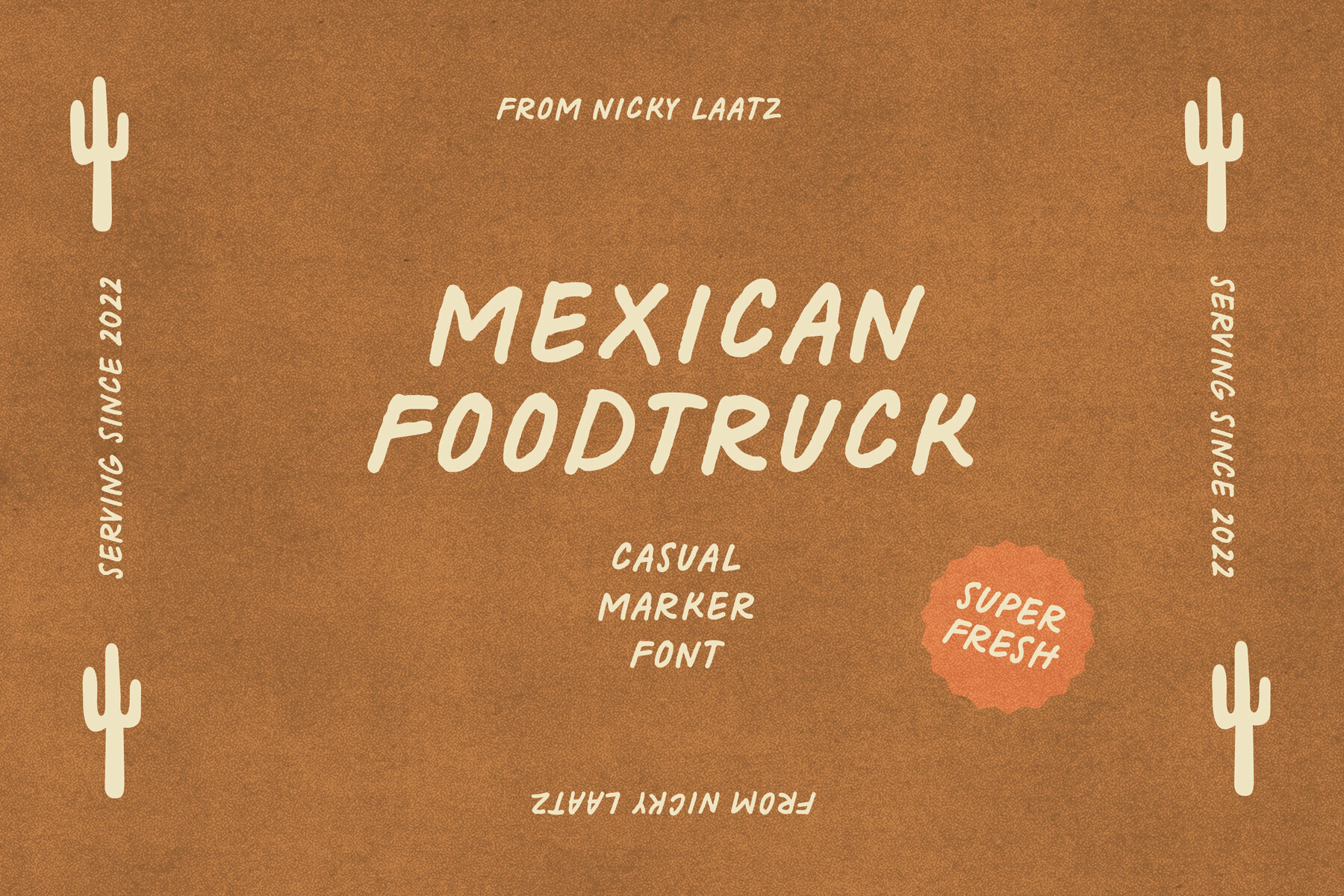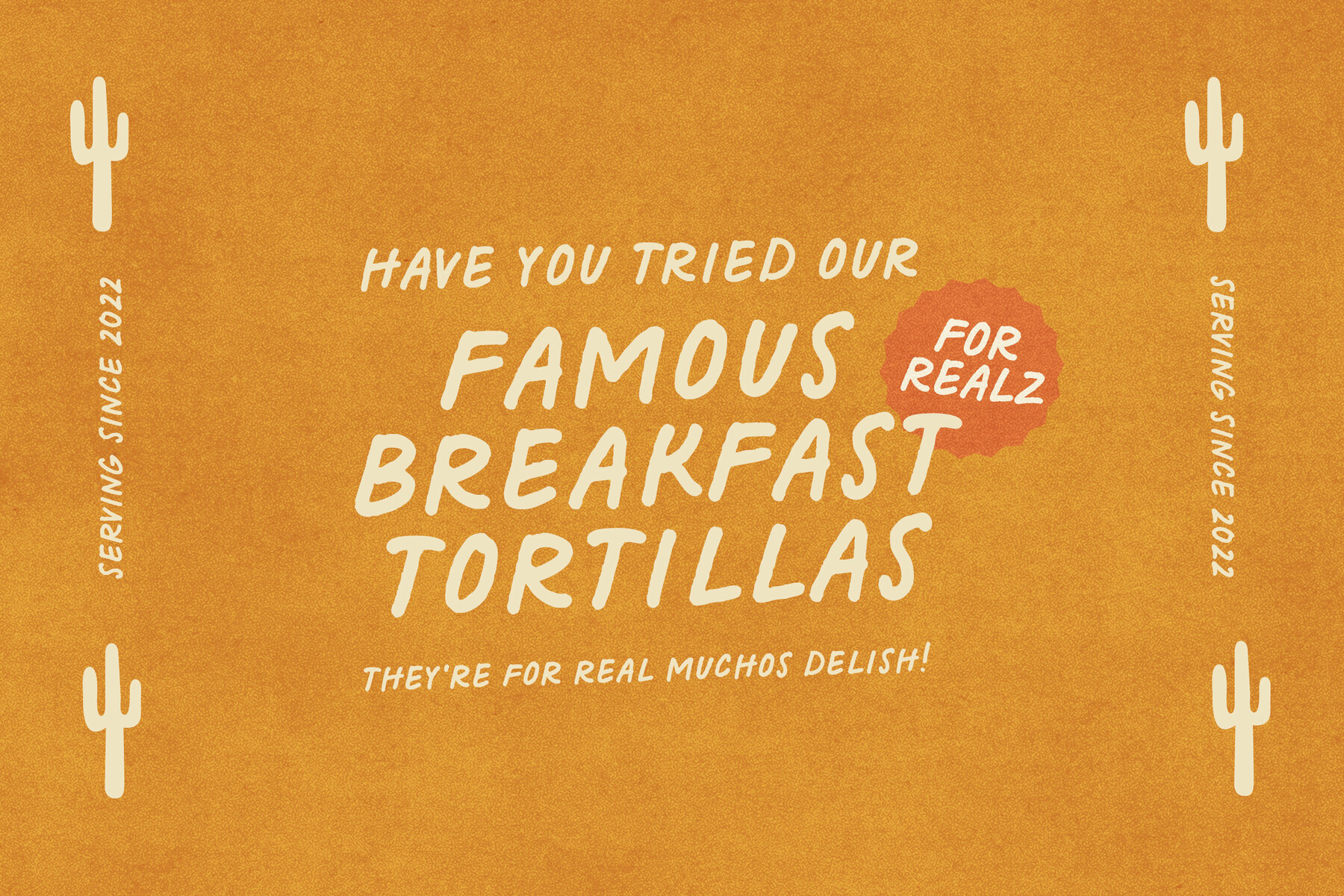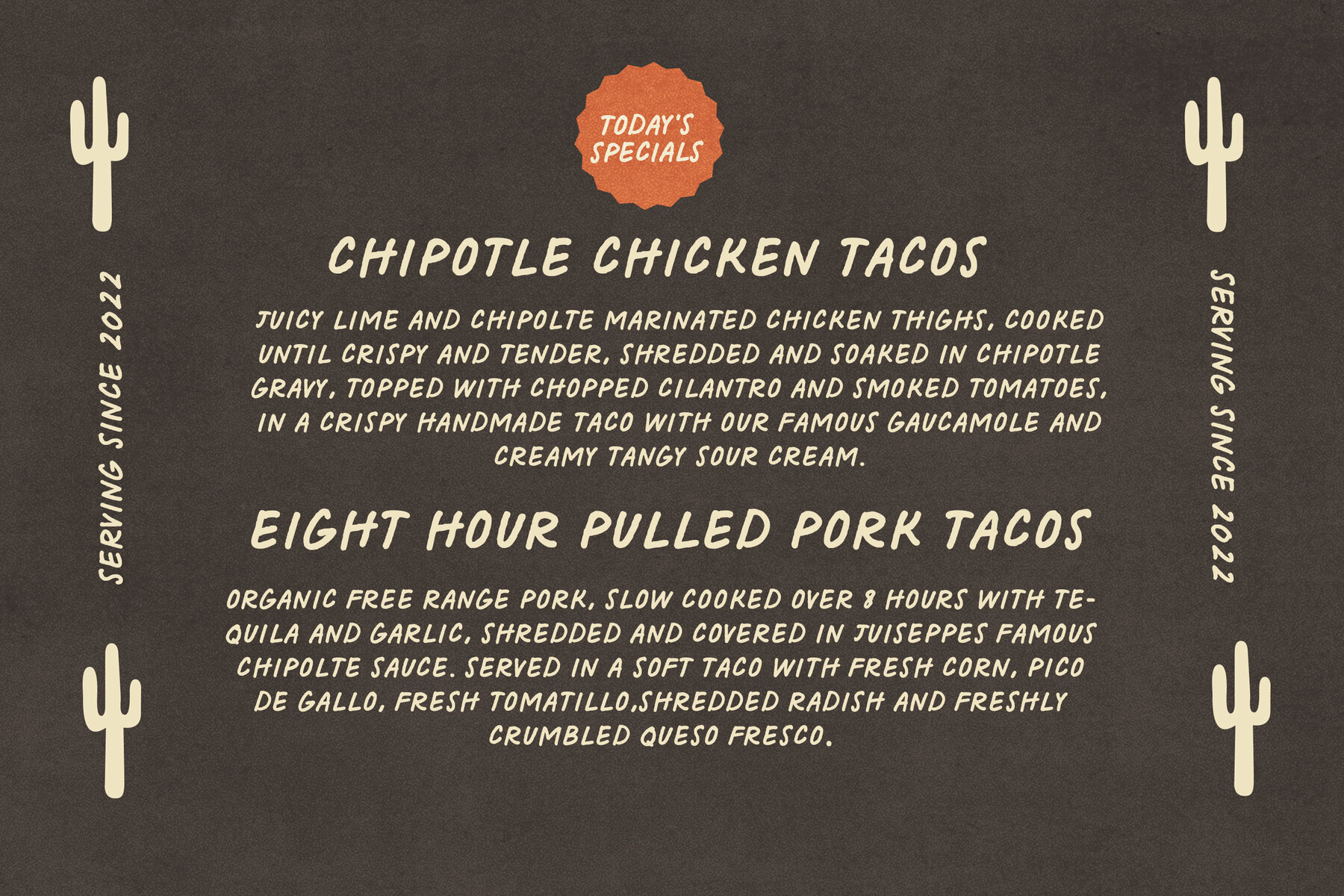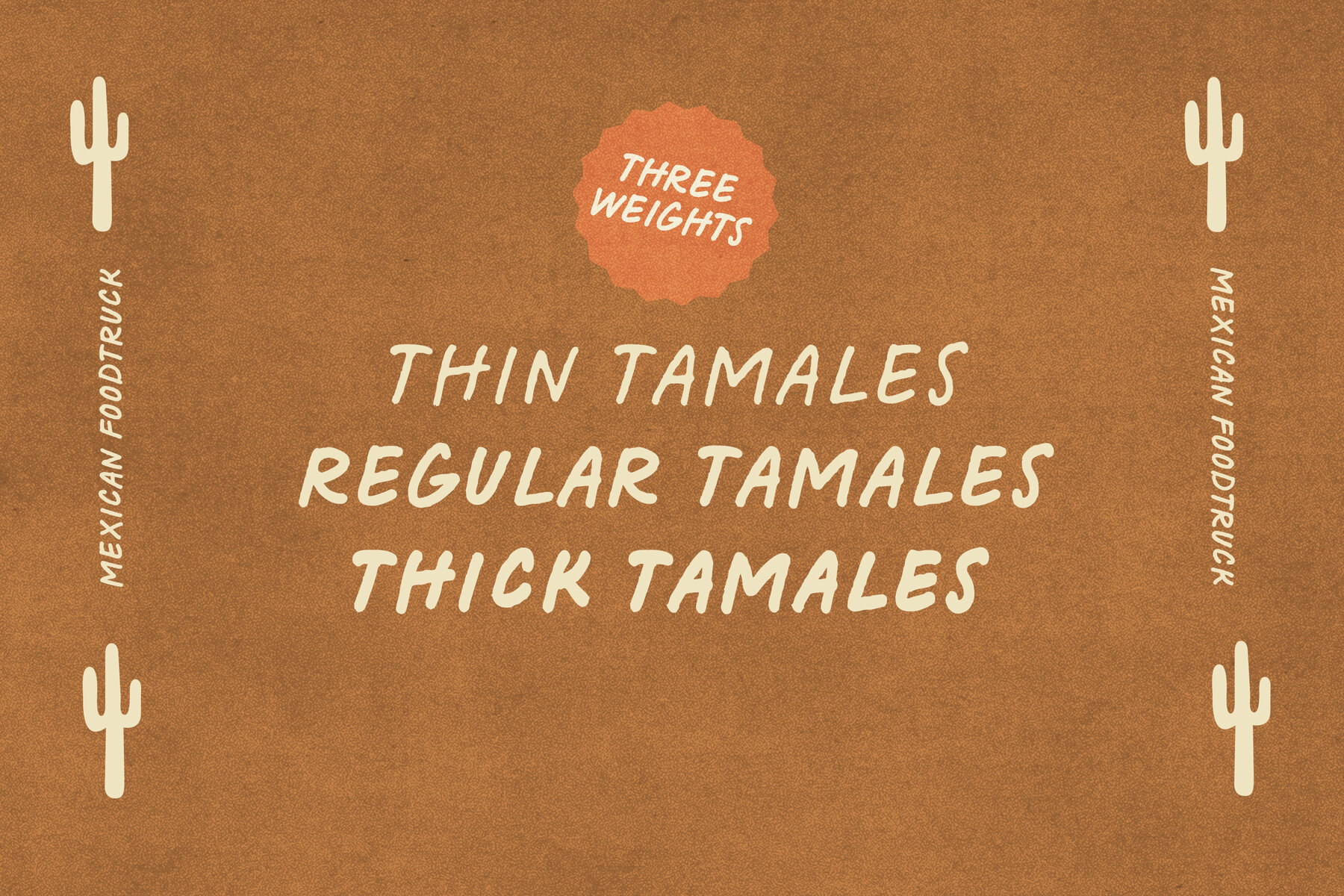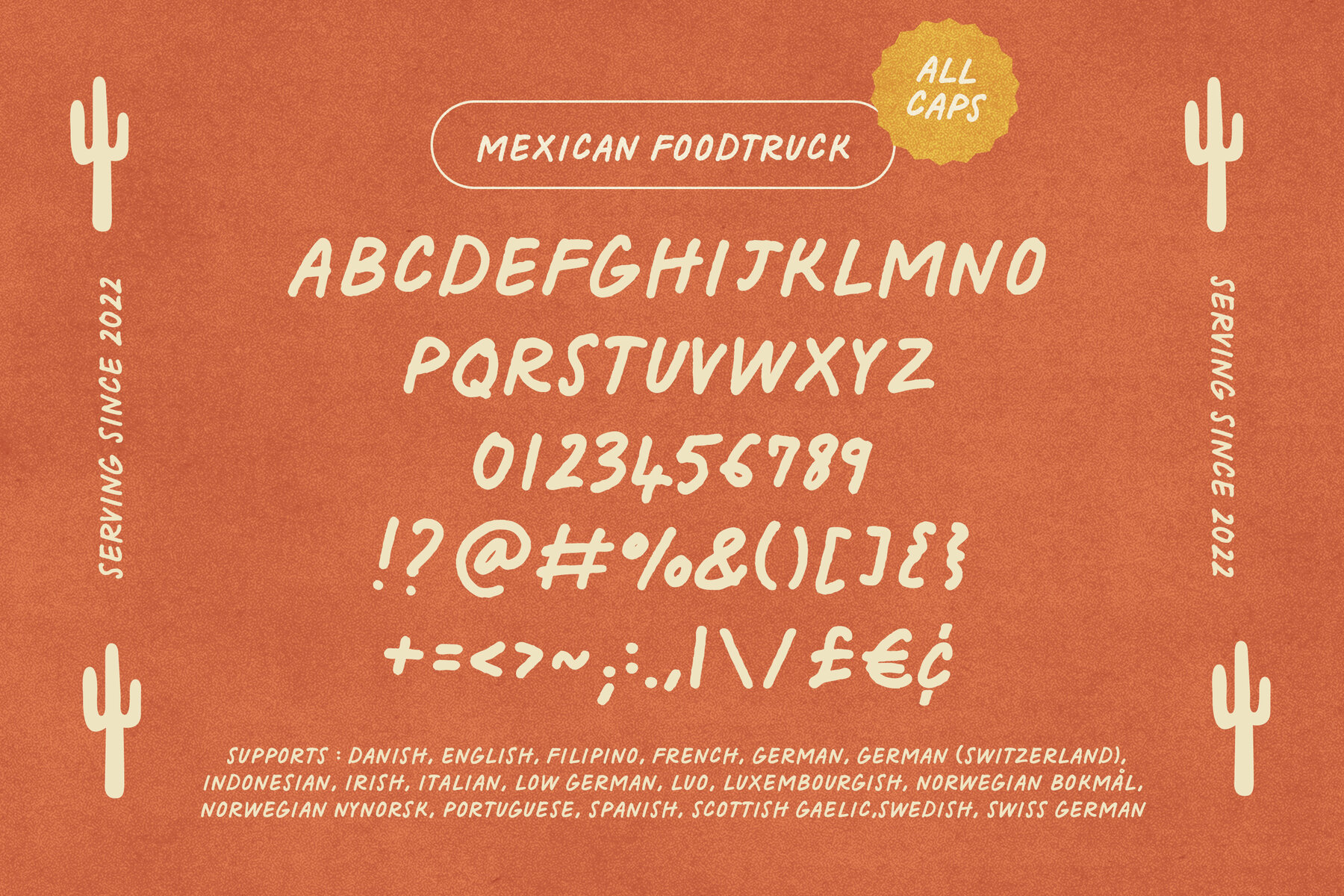
Mexican Foodtruck Font
Unveiling 'Mexican Foodtruck', another masterstroke from the ingenious Nicky Laatz. Exuberating a casual and cheeky vibe, this Marker Font carves a niche of its own in the realm of typography. Designed with precision and thoughtfulness, it expresses the playful spirit of Mexican culture in every curve and dot. Advertisable on various mediums, it incorporates itself effortlessly in greeting cards, menus, recipe books, or any handwritten notes. Its relaxed, summer-friendly personaance makes it an apt choice for projects with a laid-back vibe. With three different weights to choose from - Thin, Regular, and Thick - it offers versatility in design possibilities. Its unique quirkiness provides a refreshing and hearty feel that imbues your designer content with a distinct touch. Ideal for both graphic designers and marketing firms, it can help to elevate brand presence and make an enhanced statement. So why wait? Now is the time to let 'Mexican Foodtruck' paint your projects with its characterful strokes. Features of Mexican Foodtruck:Experience the Authentic Verve of 'Mexican Foodtruck'
A Delight for Graphic Designers and Marketing Firms